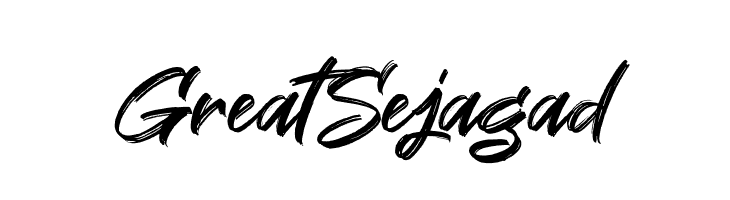
A bold, brush-style font with dynamic, rebellious strokes.
A bold, brush-style script font with dynamic, flowing strokes.
A bold, brush-style font with dynamic and expressive strokes.